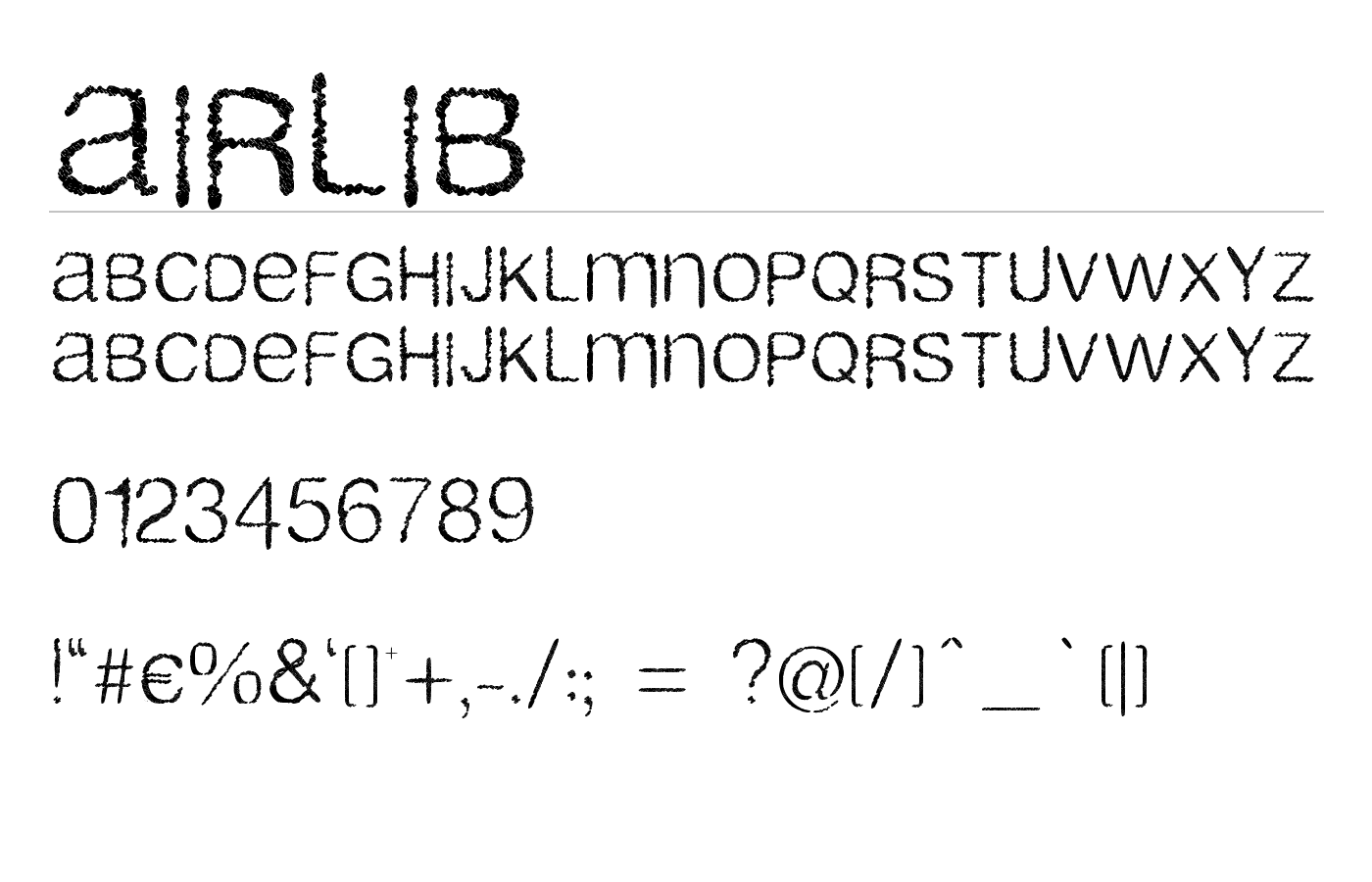
Airlib is a unique sans serif font with a hand-drawn, textured appearance that gives it a casual and organic feel. Its light weight, narrow width, and consistent stroke texture make it ideal for creative and informal designs, adding a touch of personality and warmth to branding, posters, and playful editorial projects. This font works well where a human, approachable style is desired without sacrificing legibility.
airlib Font
About airlib Font